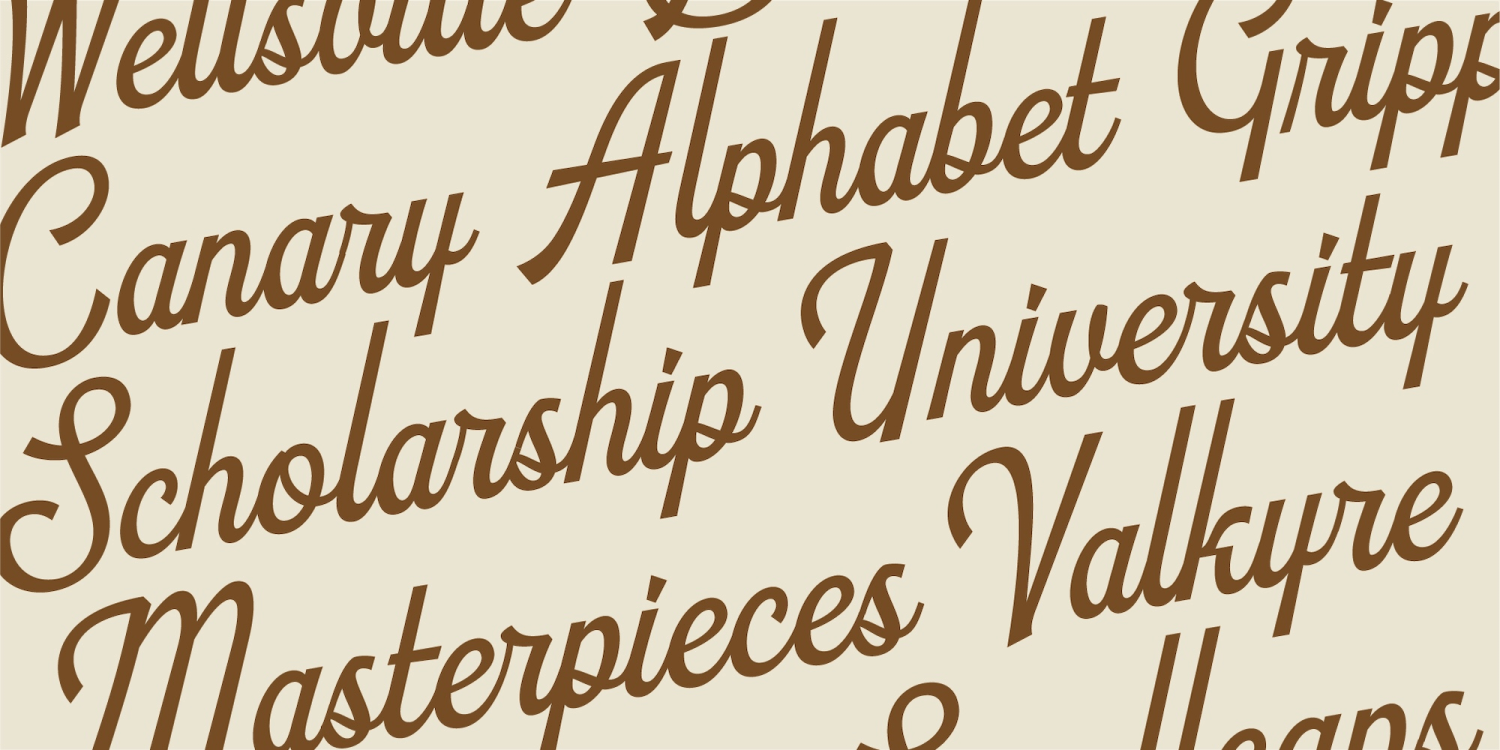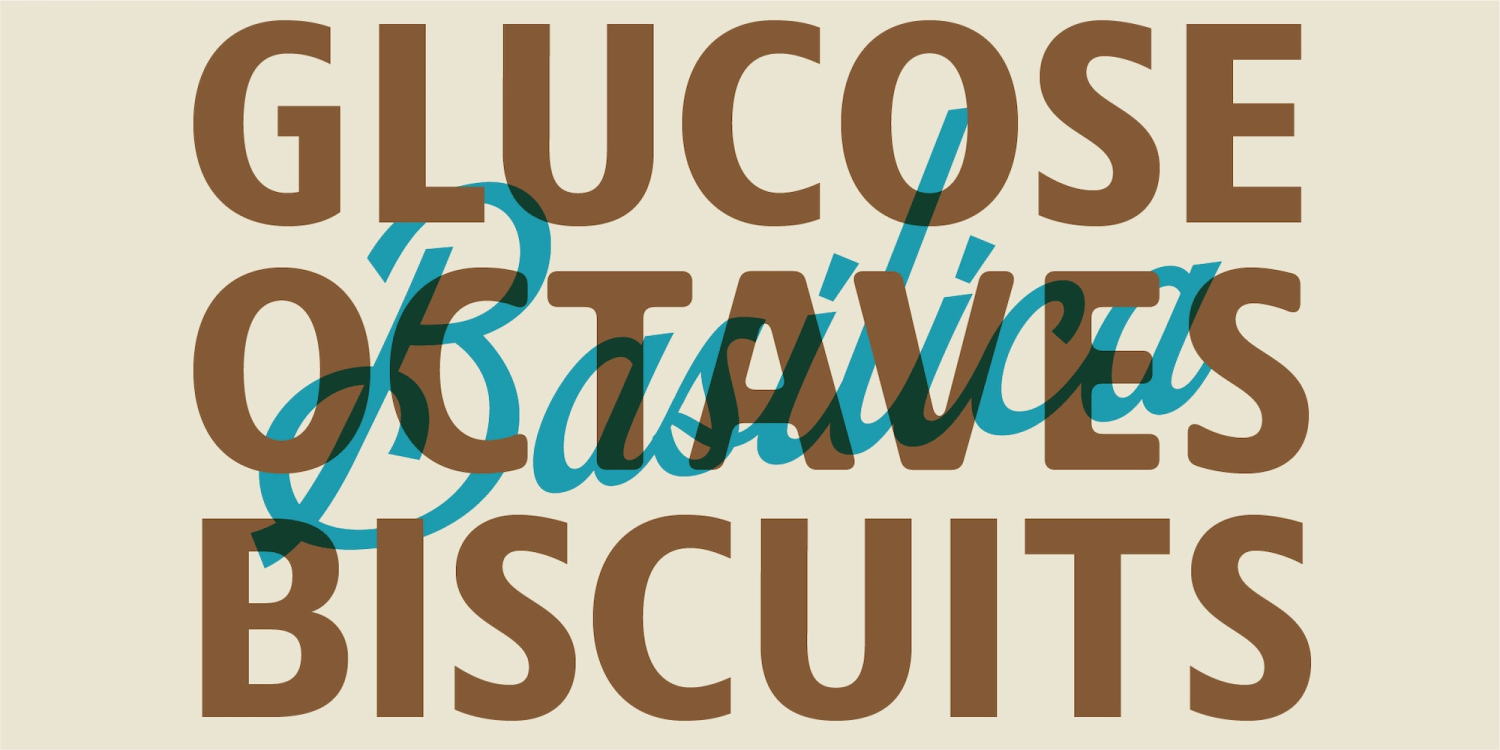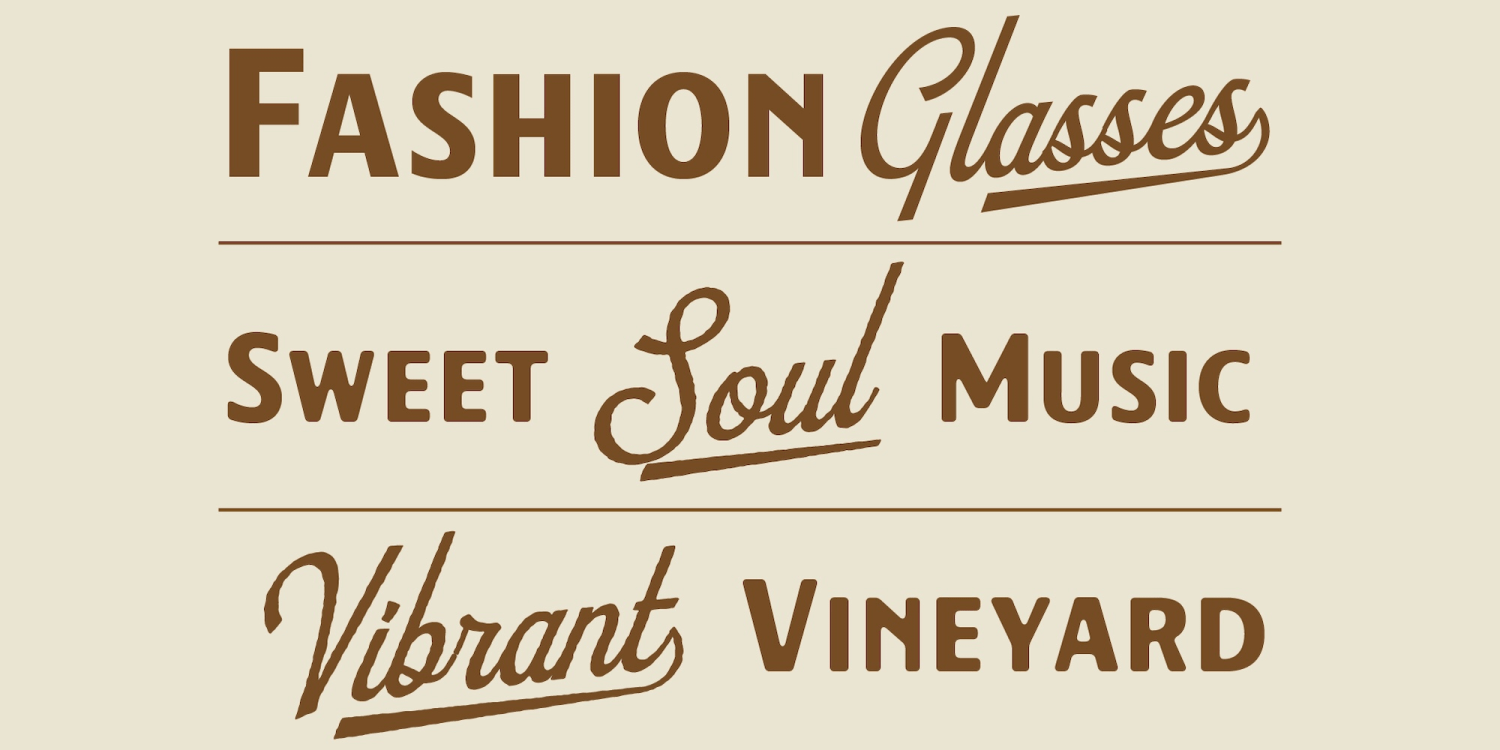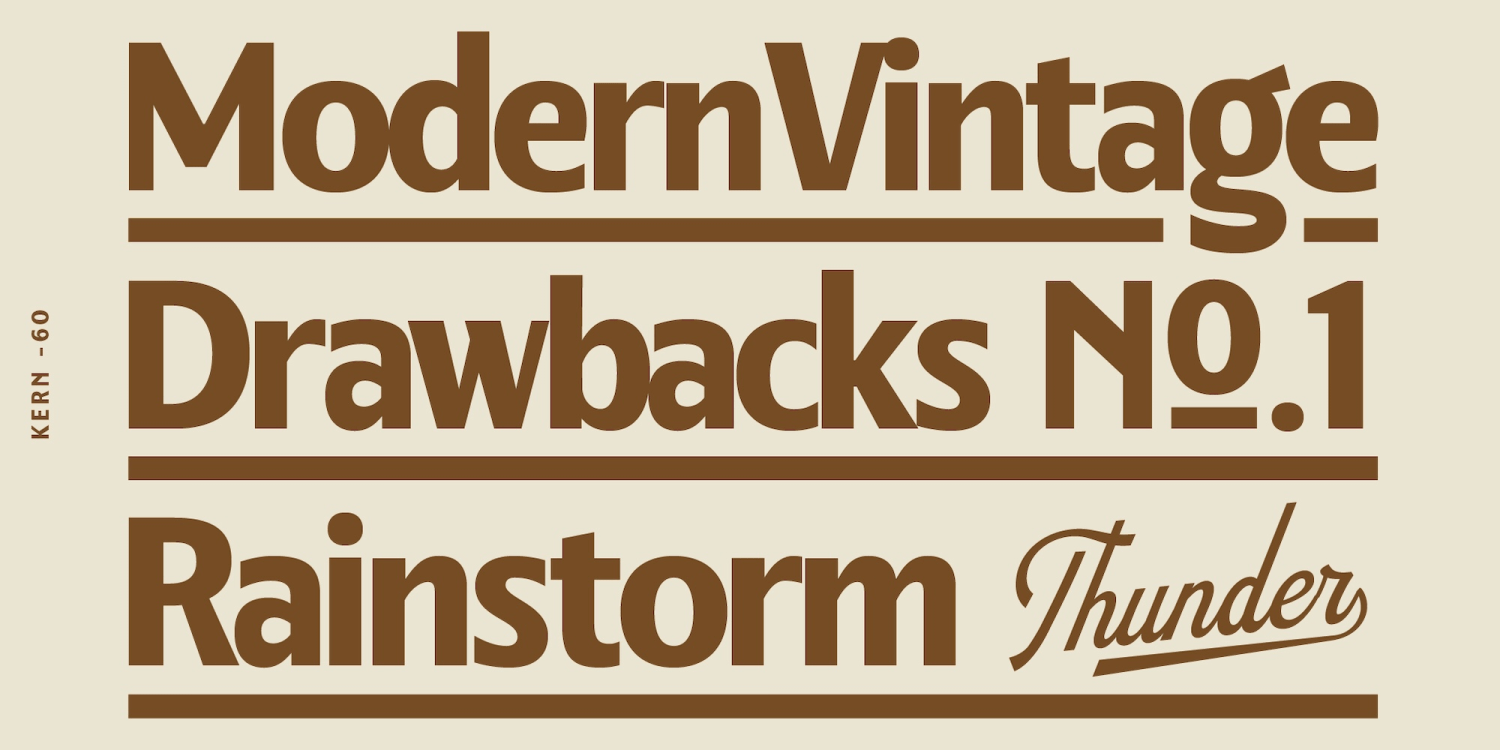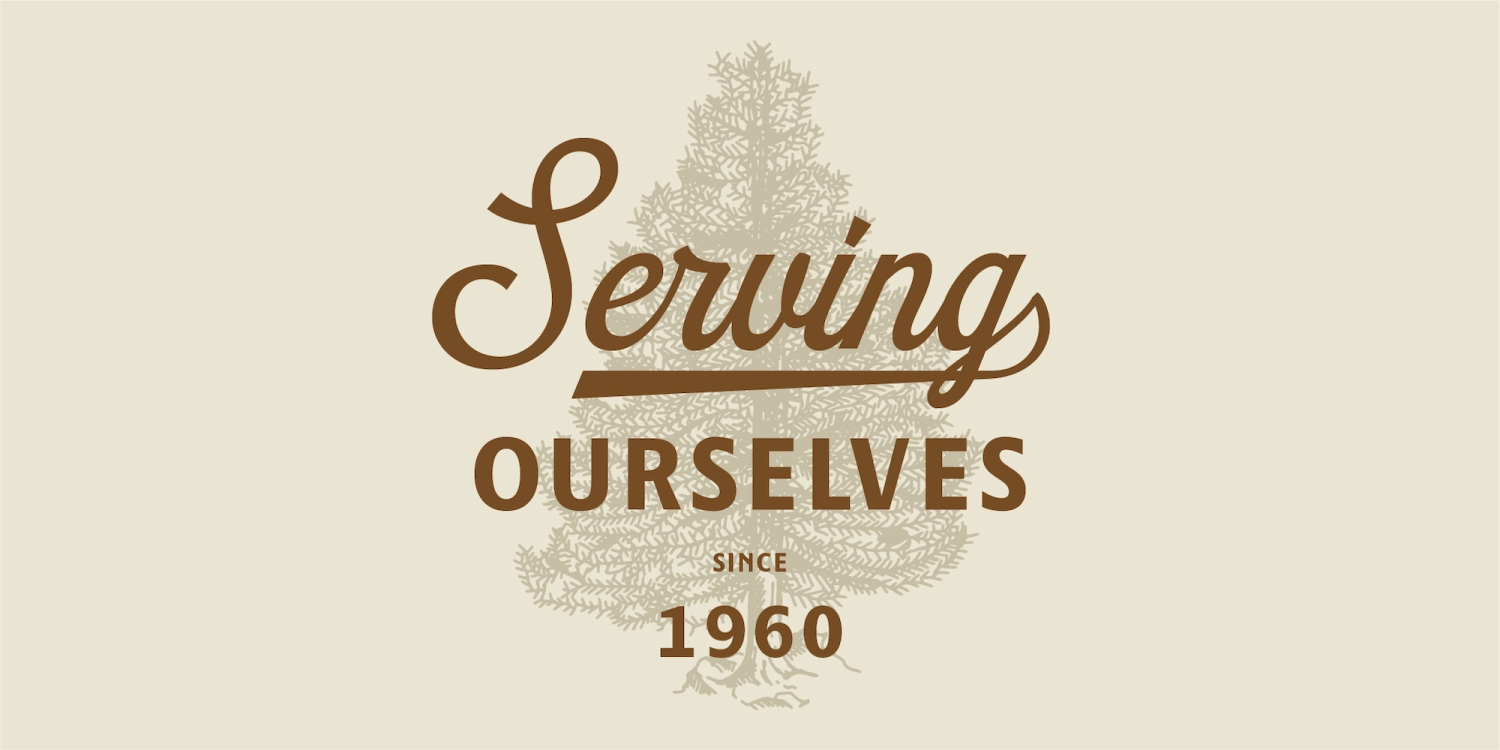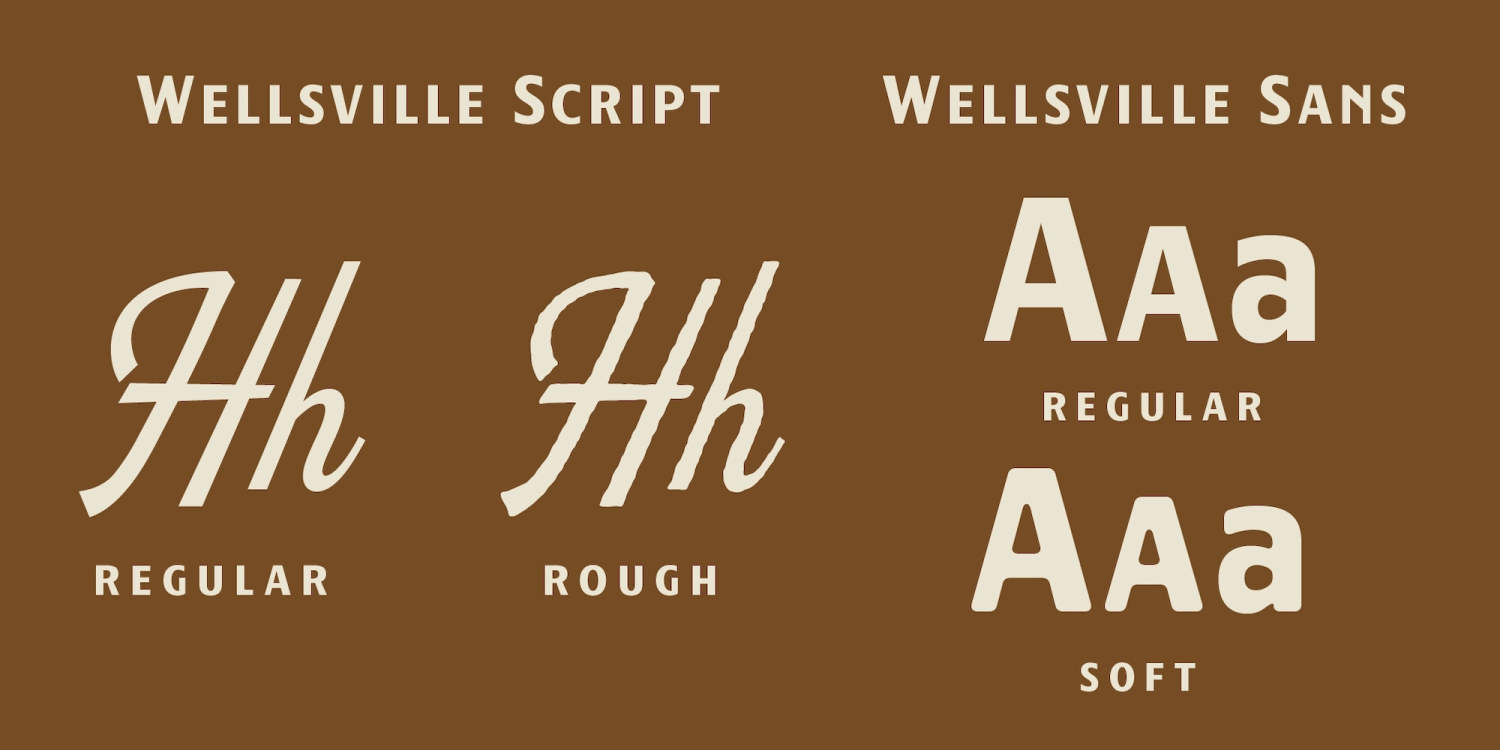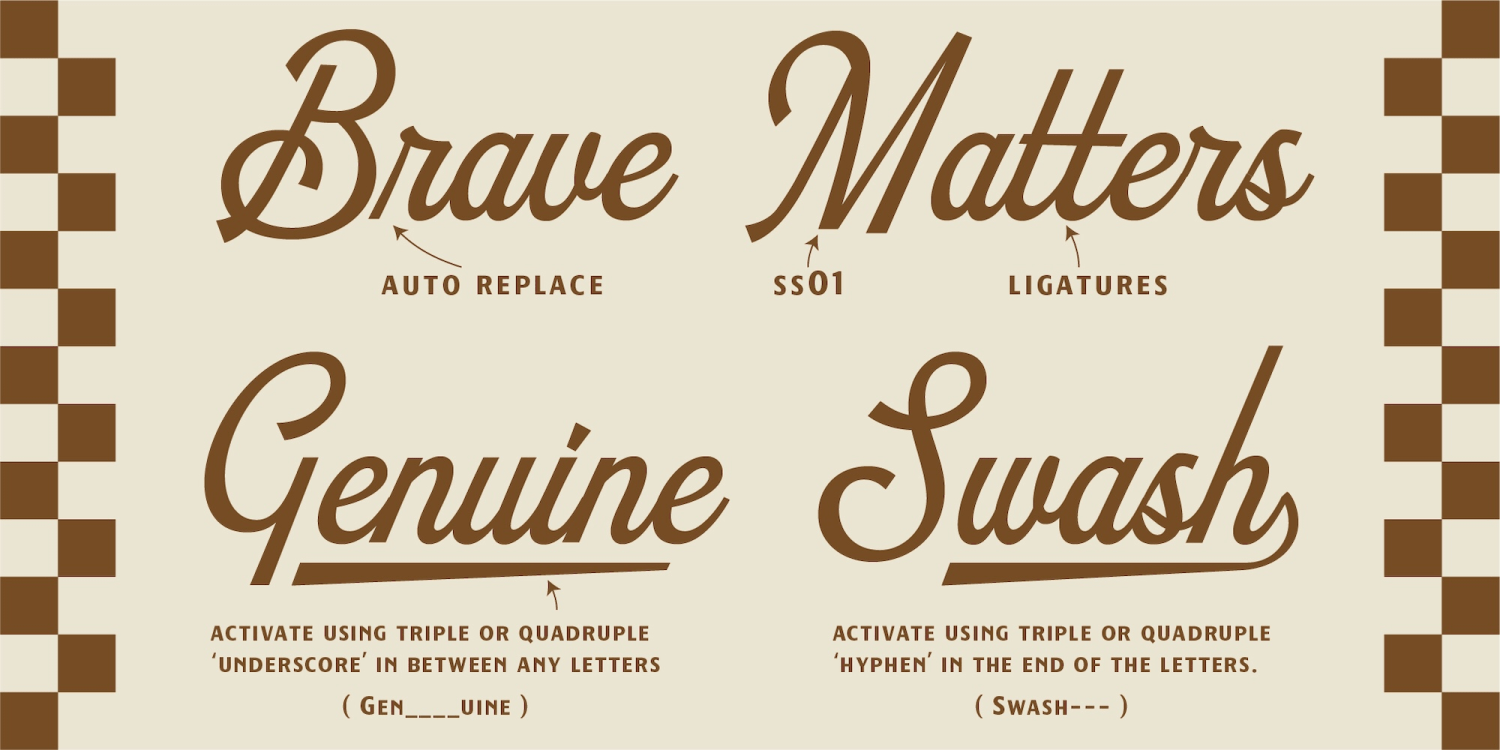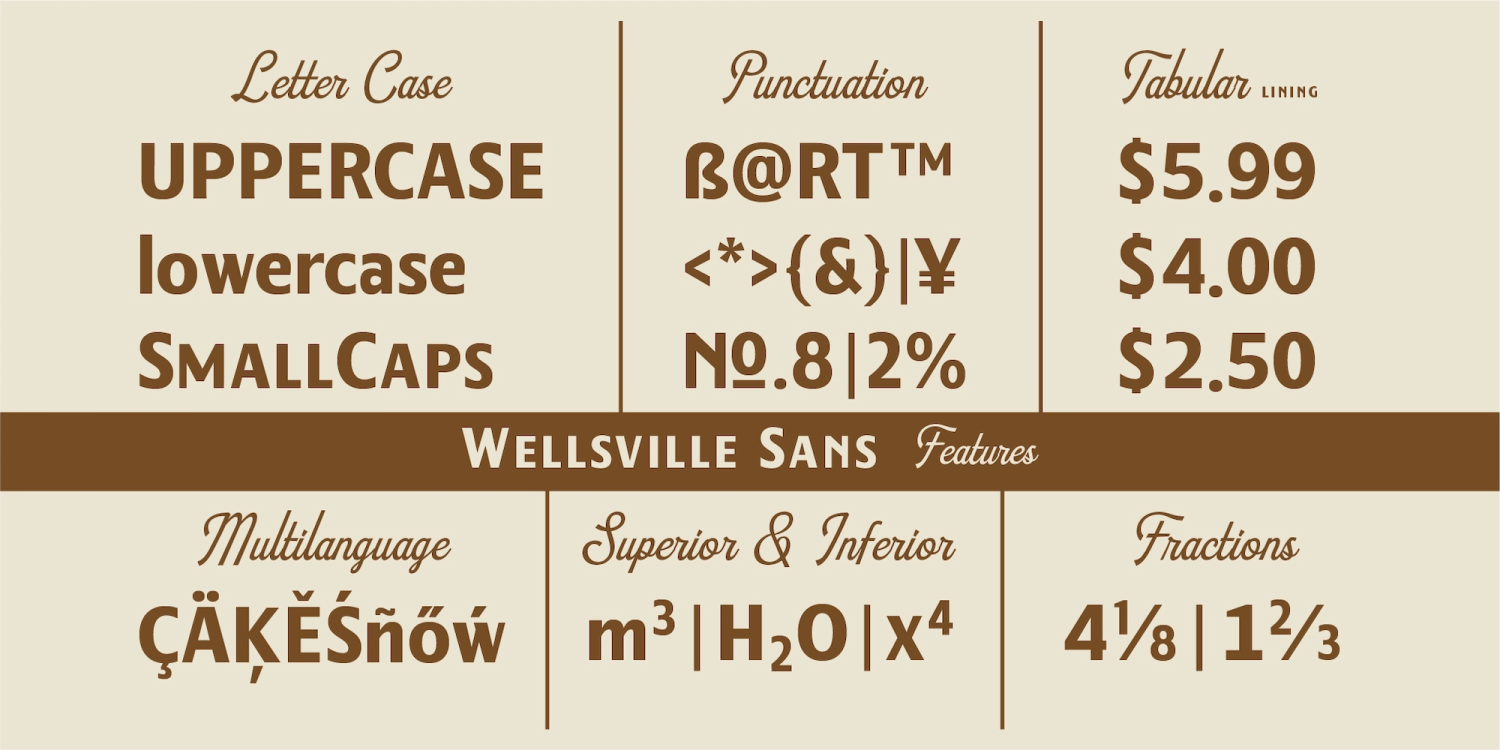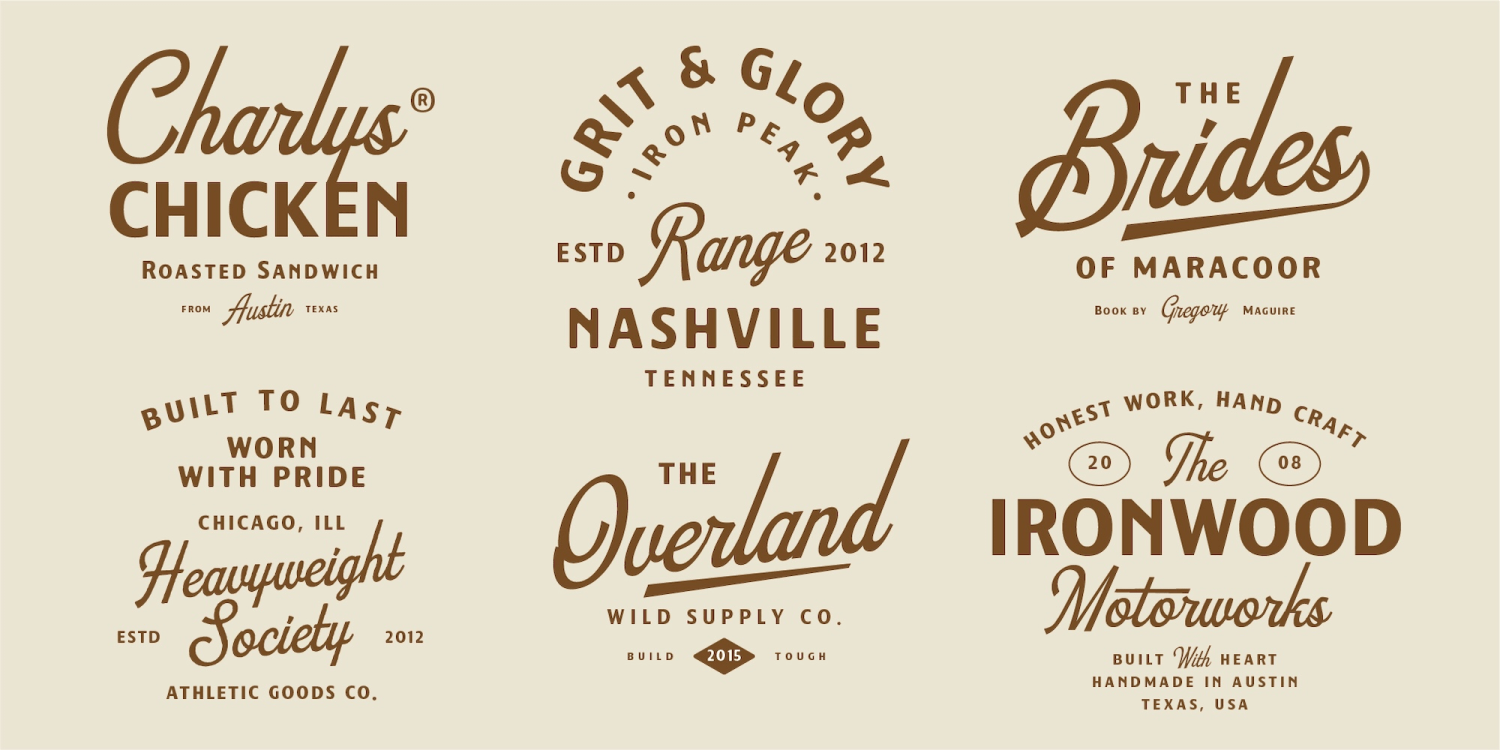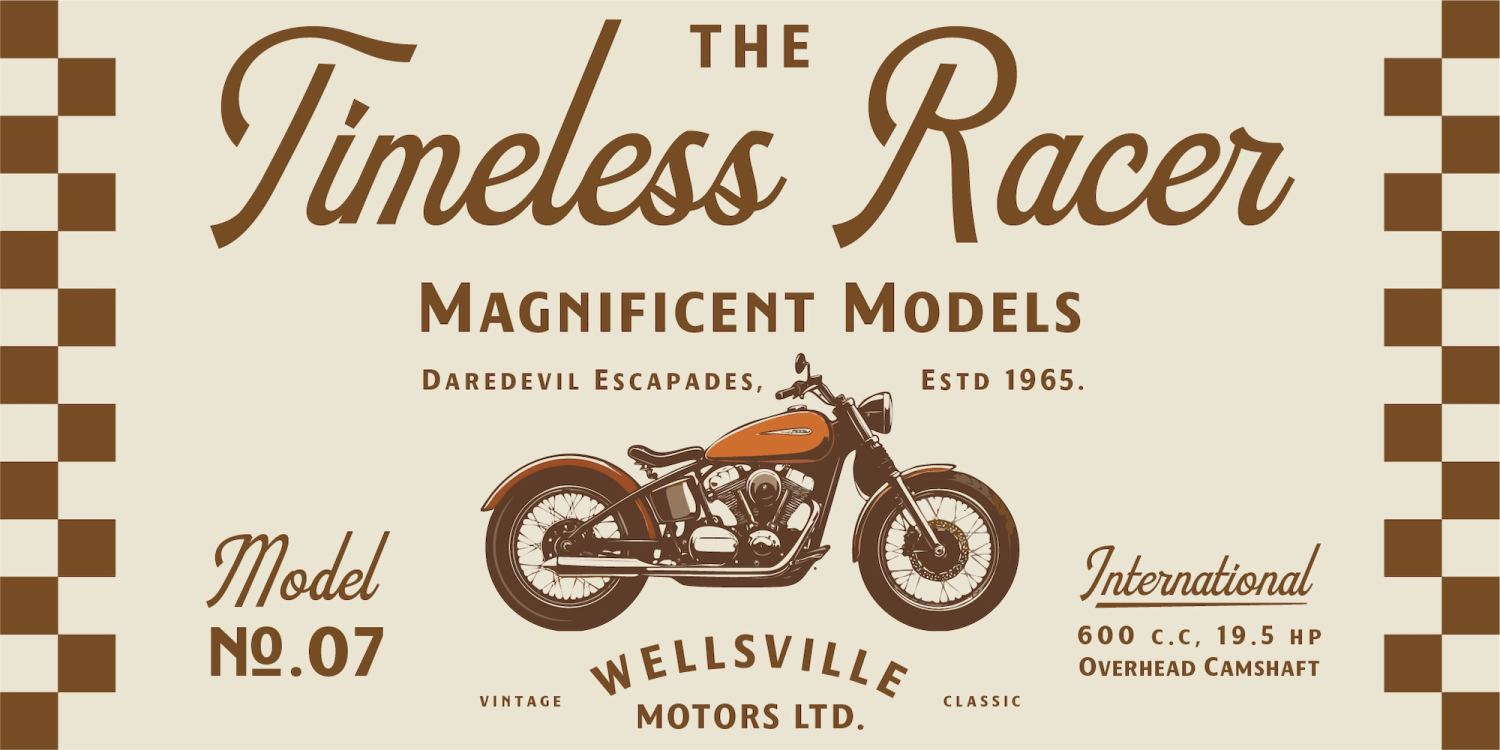
Wellsville
Font Family by AF Studio
Wellsville is a vintage-inspired font duo that artfully combines a smooth script with a bold sans serif, making it ideal for timeless design projects. This font is perfect for creating distinctive logos, elegant packaging, charming cafe branding, or nostalgic posters.